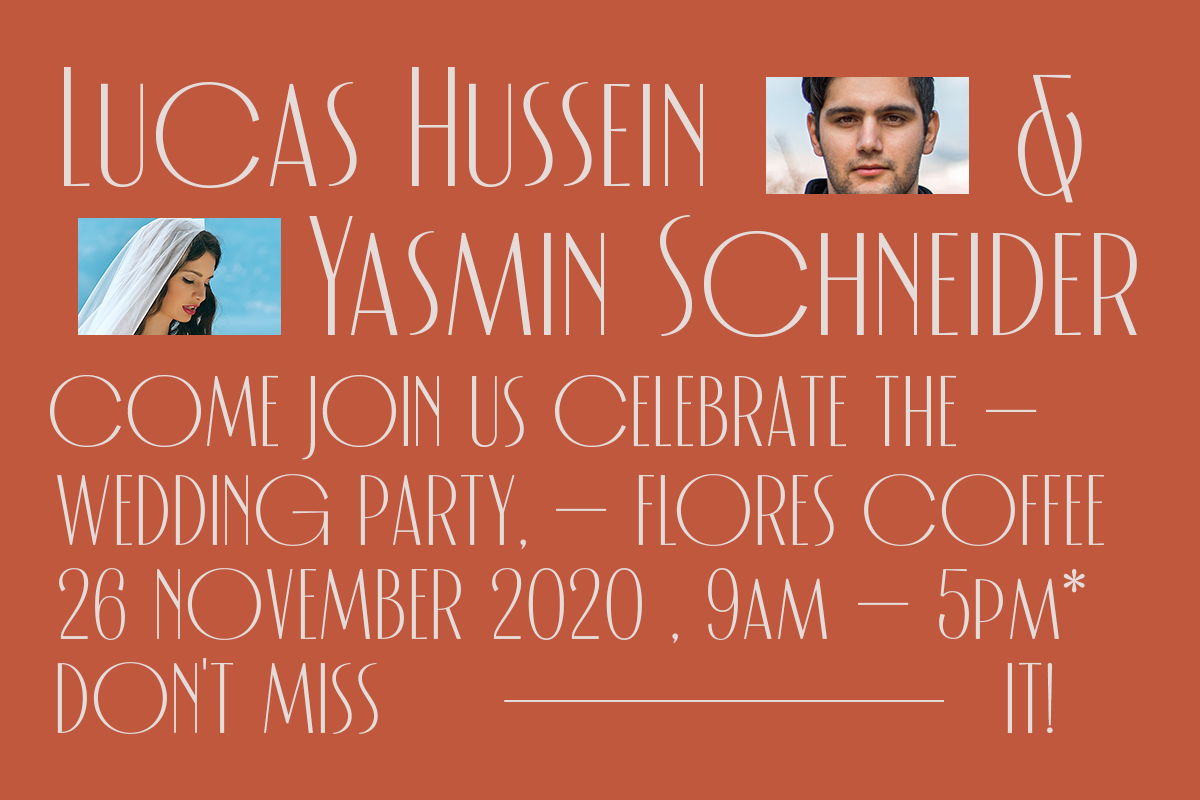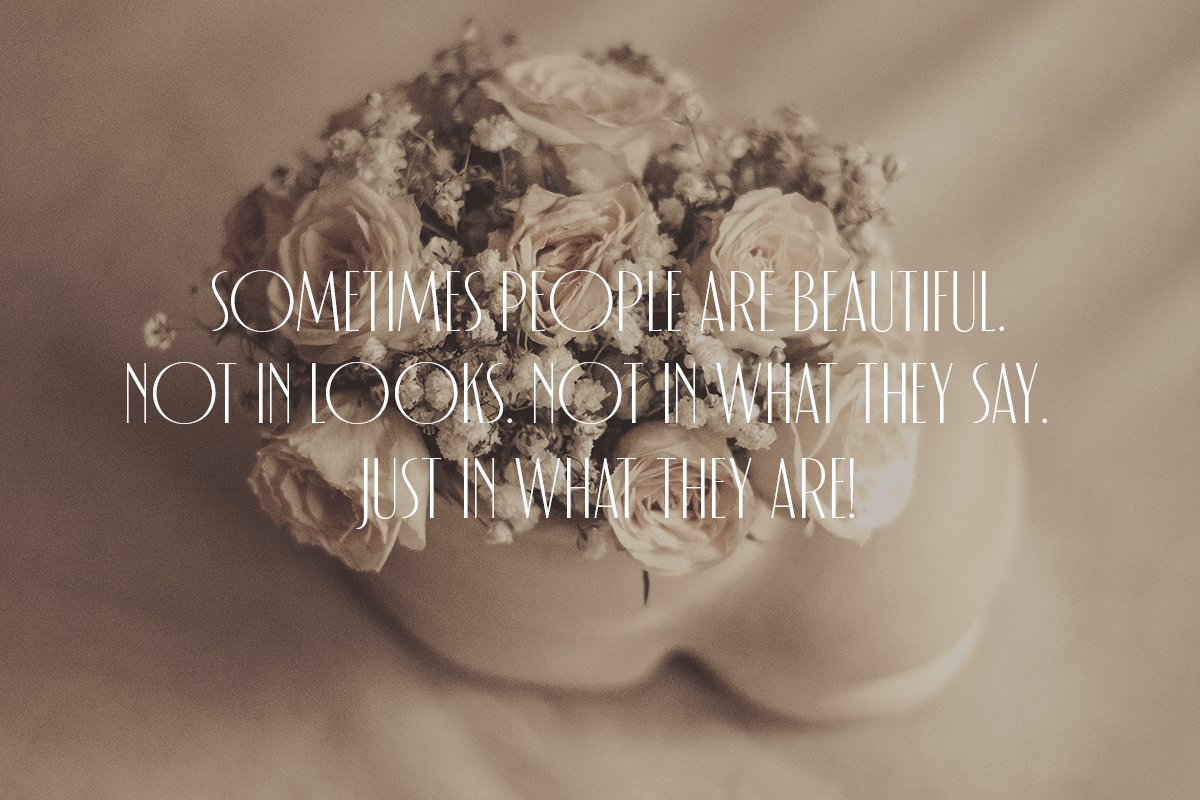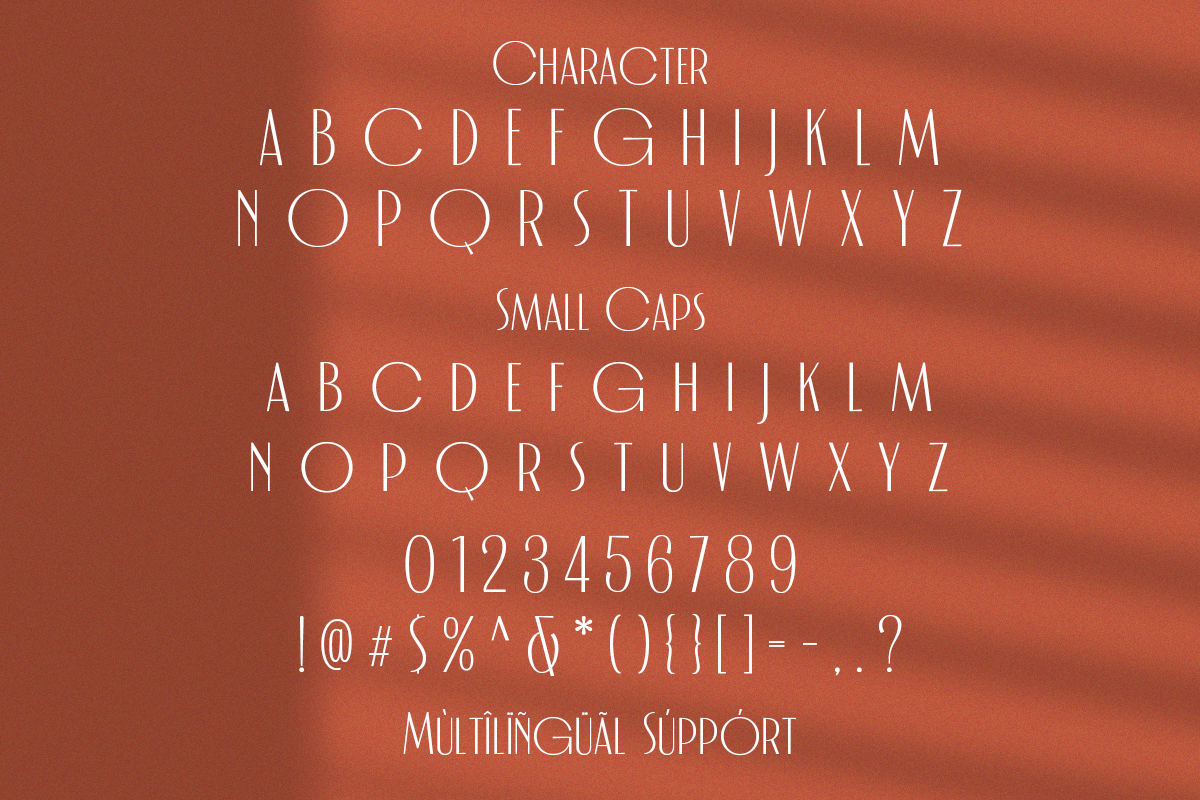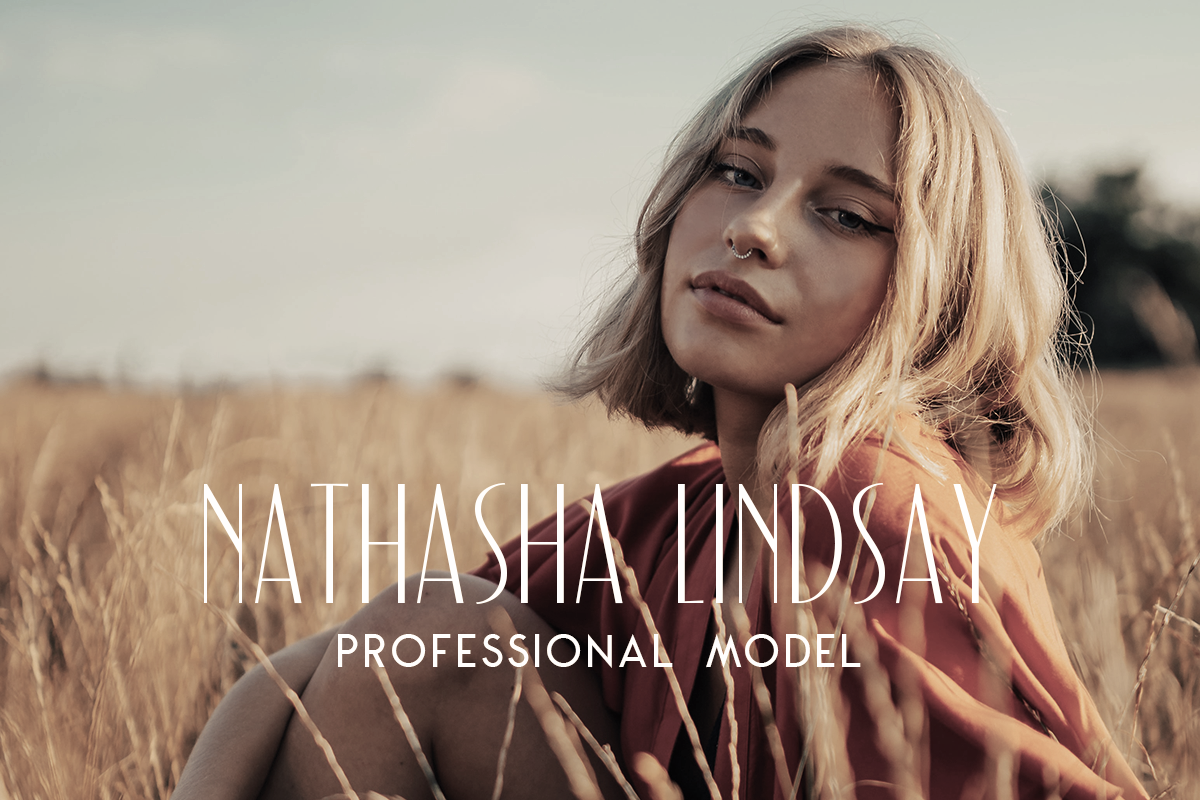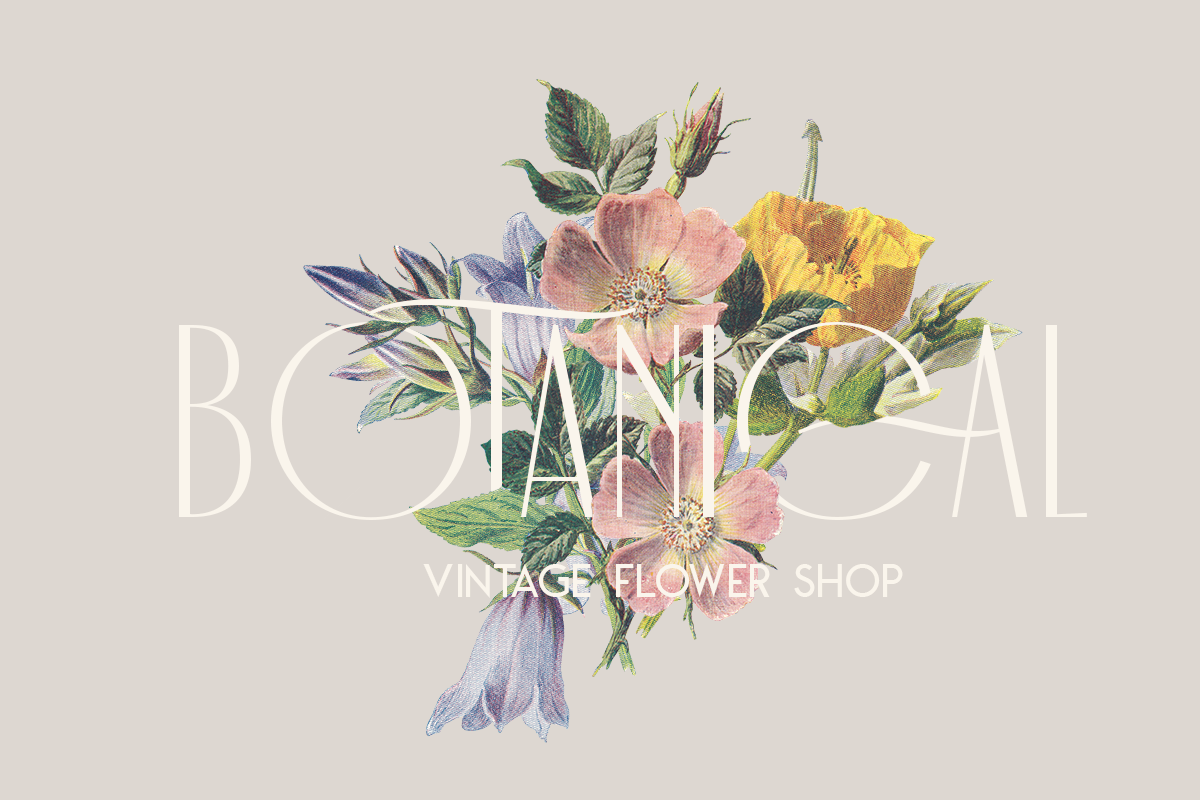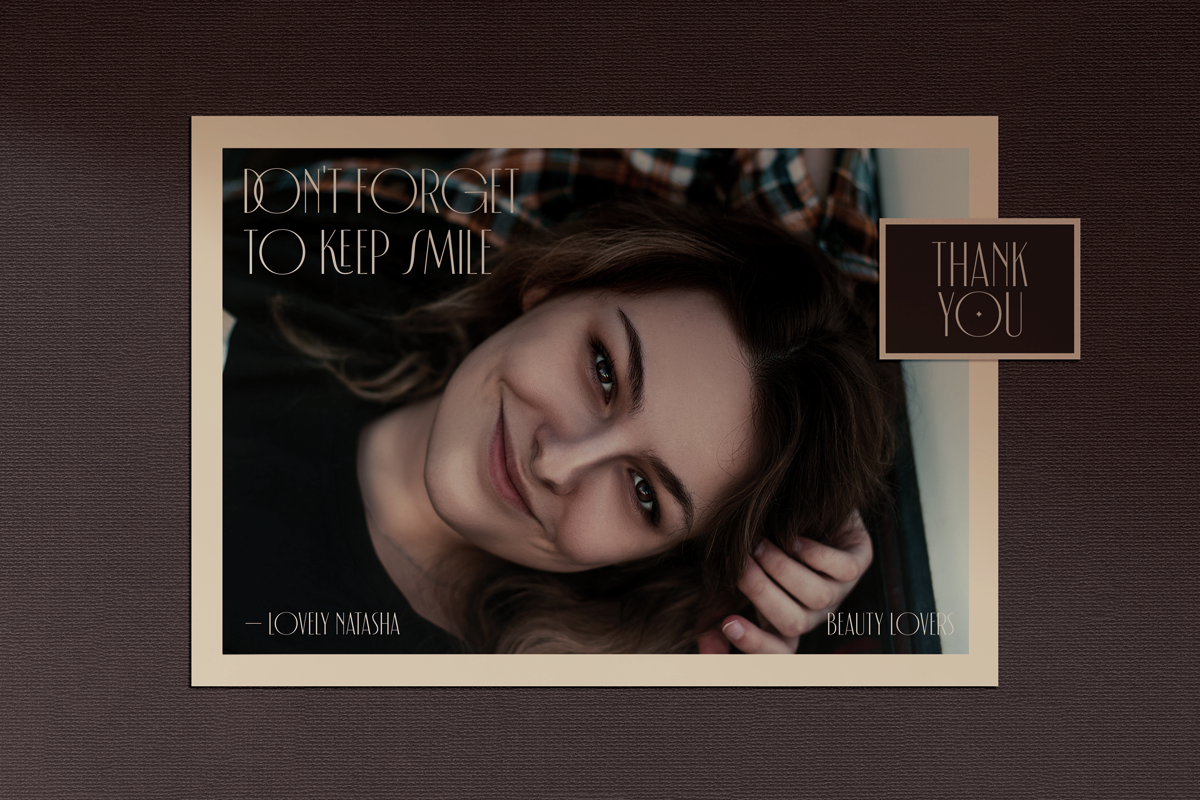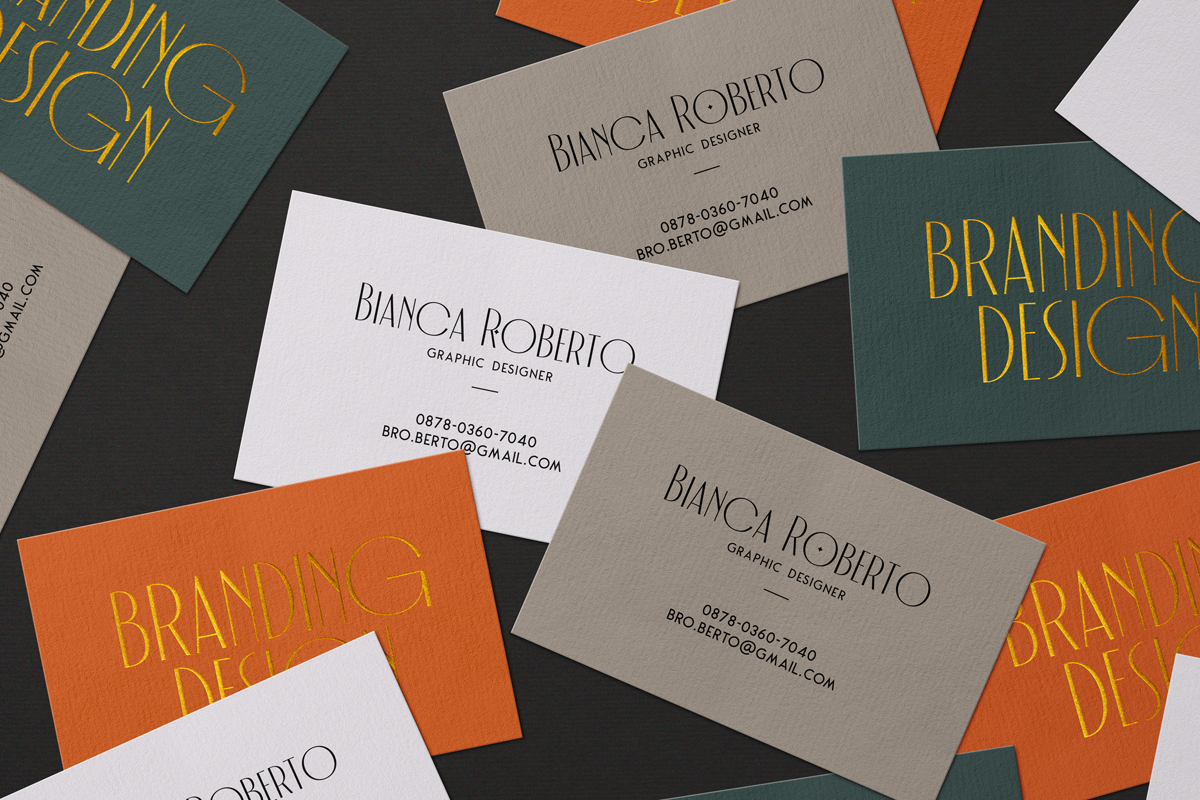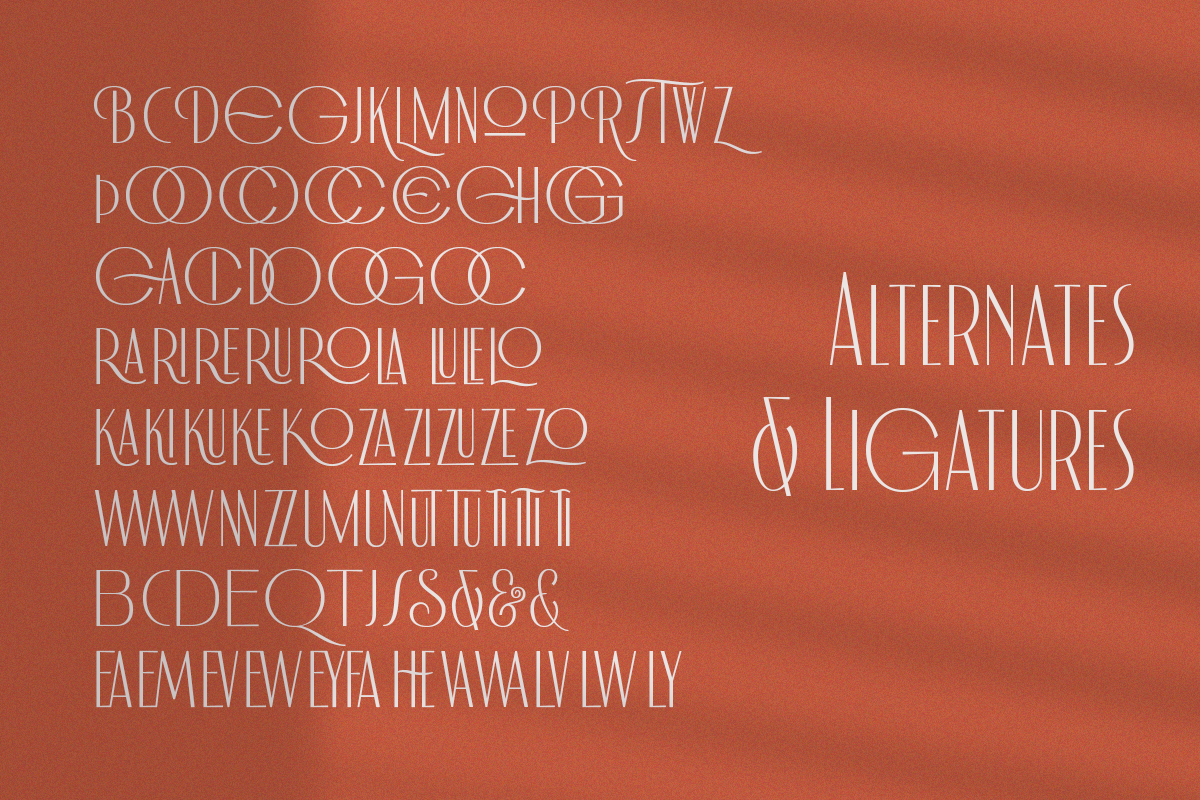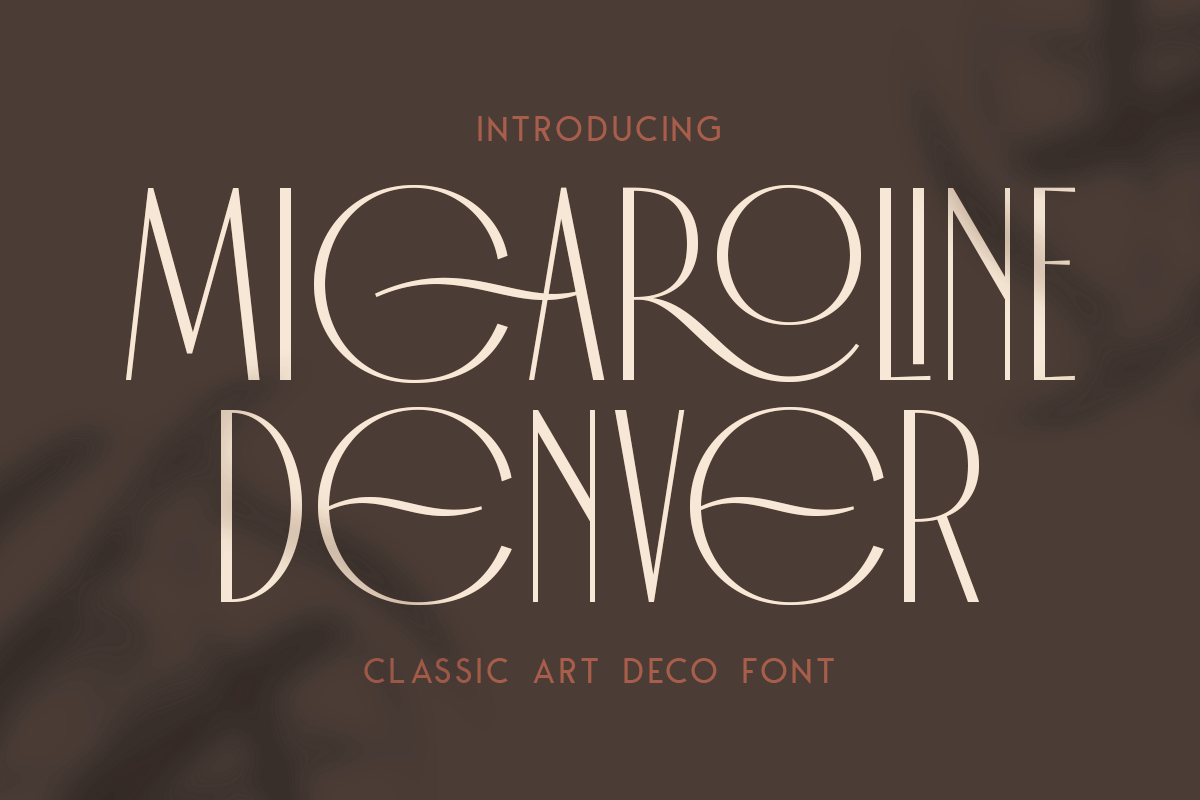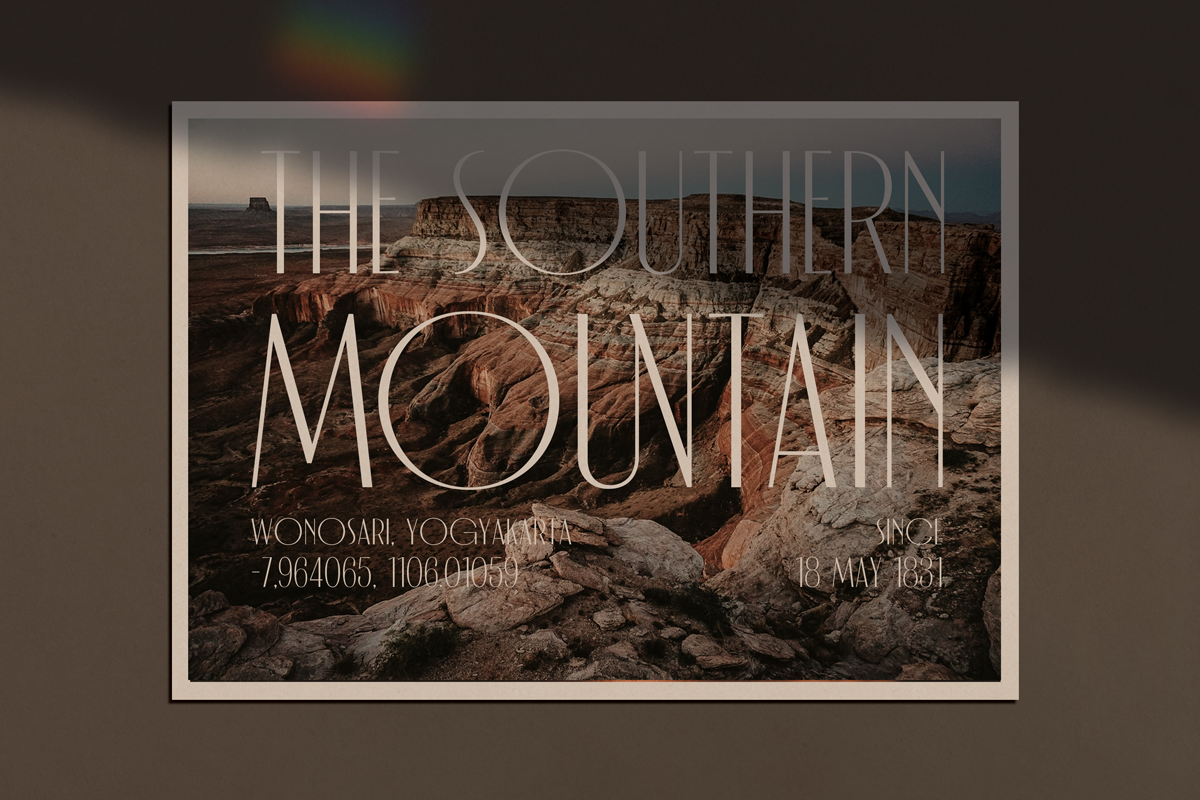
MICAROLINE The Classic Art Deco Font with Alternates & Ligatures
MICAROLINE is a family Sans Serif font designed with carefully handcrafted. Also suitable for branding, T-shirt, Wedding Invitation, Classic Design, Logotype, and any project. Comes with a tons of ligature make your life more than comofortable, easier to design and adjust frustating space in font.
- Micaroline Regular
- Micaroline Slanted
Multilingual Support support many different languages 20+ .